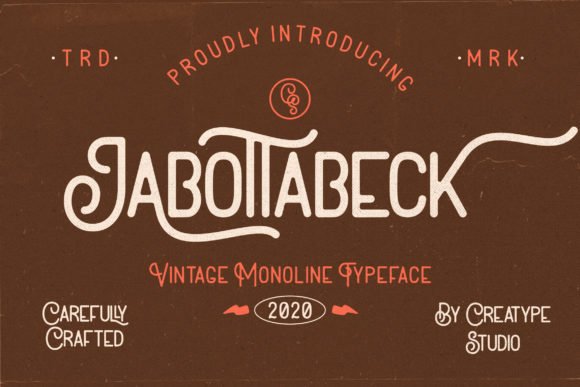
Discover the Timeless Elegance of Jabottabeck Font
Have you ever found yourself pouring over old photographs and vintage advertisements, searching for inspiration for your next creative project? The nostalgia of bygone eras often sparks a sense of excitement and curiosity. For designers, this feeling is especially palpable, as we strive to capture the essence of a bygone era and bring it to life in our work.
Enter the Jabottabeck Font, a vintage styled display font that embodies the spirit of a bygone era. With its neat, all-round characters and retro touch, this font is the perfect addition to any project looking to evoke a sense of nostalgia and sophistication. Whether you’re designing a logo, brochure, or advertising campaign, the Jabottabeck Font is sure to add a touch of timeless elegance.
- Unique Characteristics: Jabottabeck features a unique blend of modern and vintage elements, with intricate details and subtle texture
Jabottabeck Font Review
I recently had the chance to work with the Jabottabeck font, and I must say it’s an interesting addition to the world of typography. ✨ Here are some of the things that work well:
- Unique aesthetic: The Jabottabeck font has a distinct, quirky look that’s sure to grab attention.
- Legibility: Despite its unusual design, the font is surprisingly easy to read, especially in larger sizes.
- Customization options: The font comes with a range of stylistic sets and ligatures that can help you fine-tune its look.
However, there are some limitations to keep in mind ⚠️:
- Compatibility issues: I encountered some problems with the font’s compatibility across different operating systems and browsers.
- Lack of consistency: The font’s irregular design can make it difficult to use in certain contexts, such as body text or headings.
- Limited language support: The font’s character set is limited, which may not be suitable for projects that require support for multiple languages.
Overall, I’d say the Jabottabeck font is a great choice for projects that require a bold, eye-catching look. However, it may not be the best option for more conservative or traditional designs. With some careful planning and testing, this font can be a great addition to your typography arsenal.